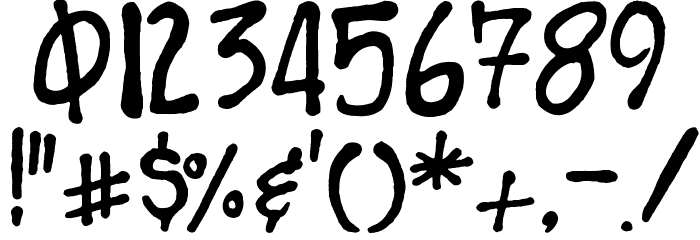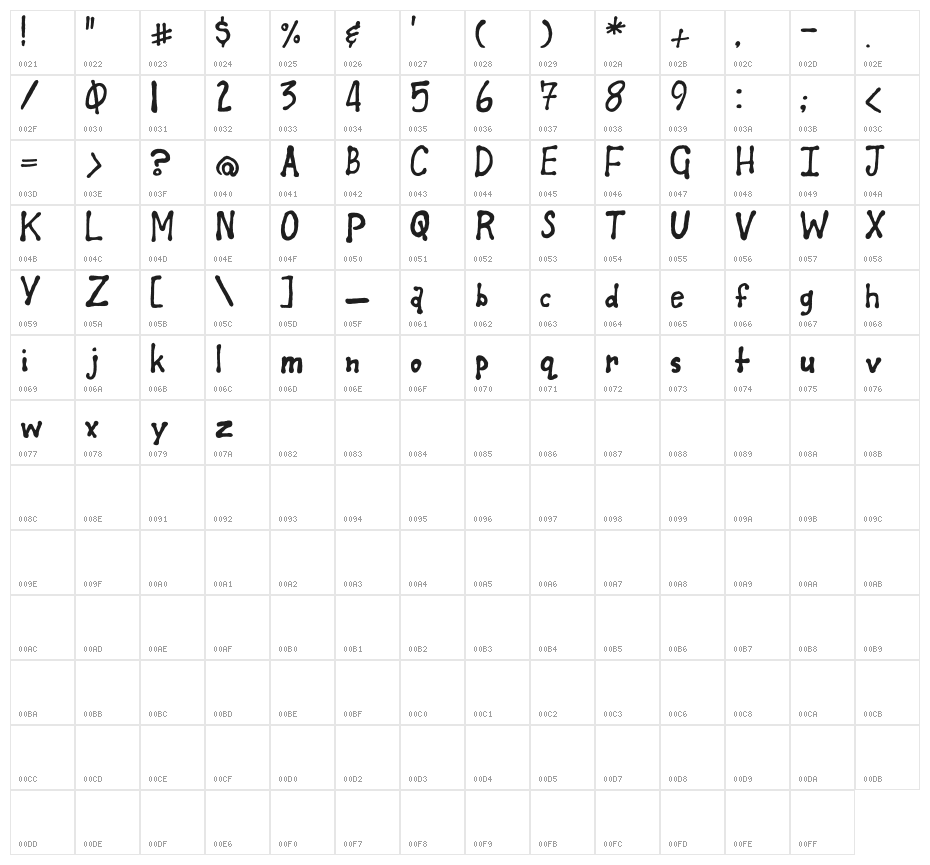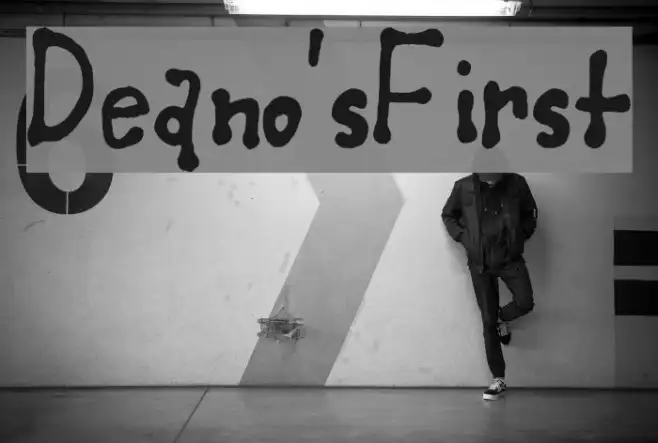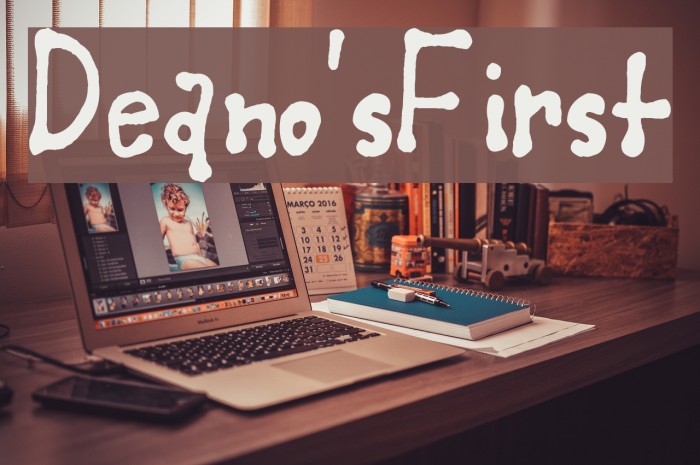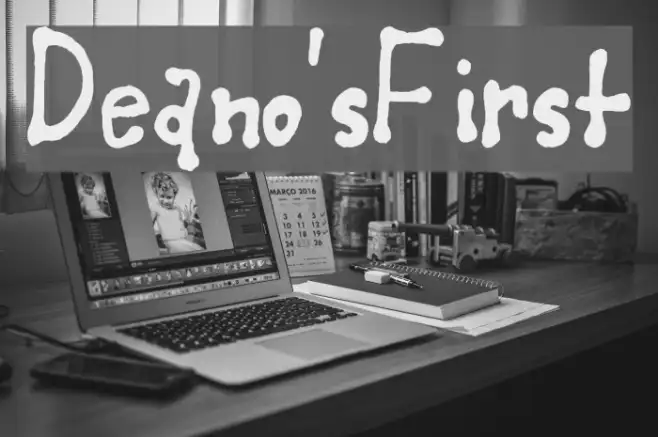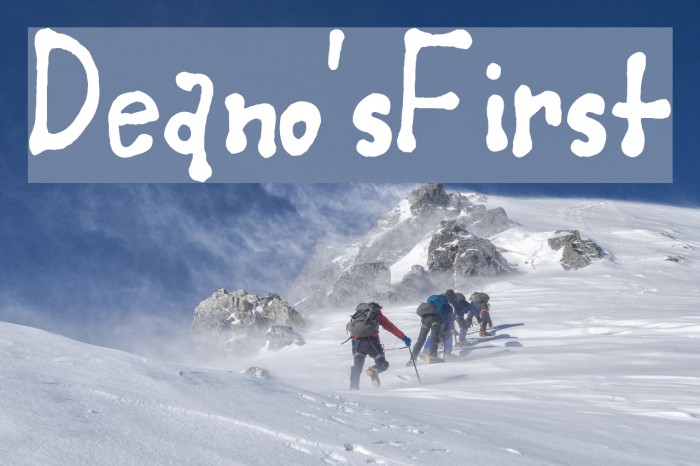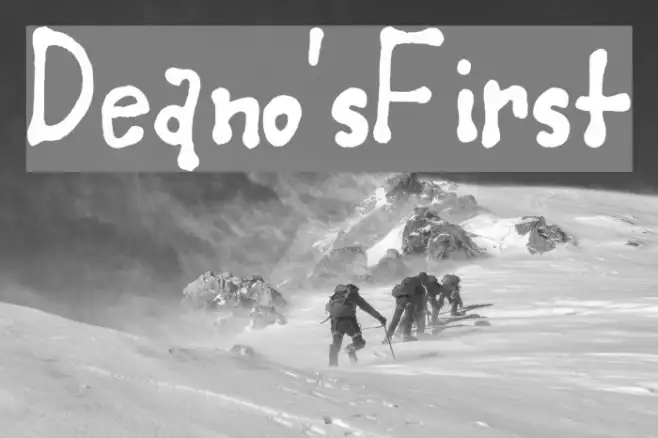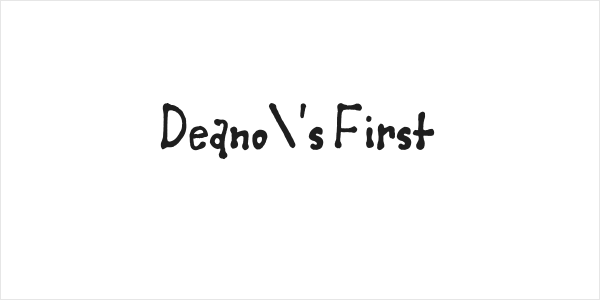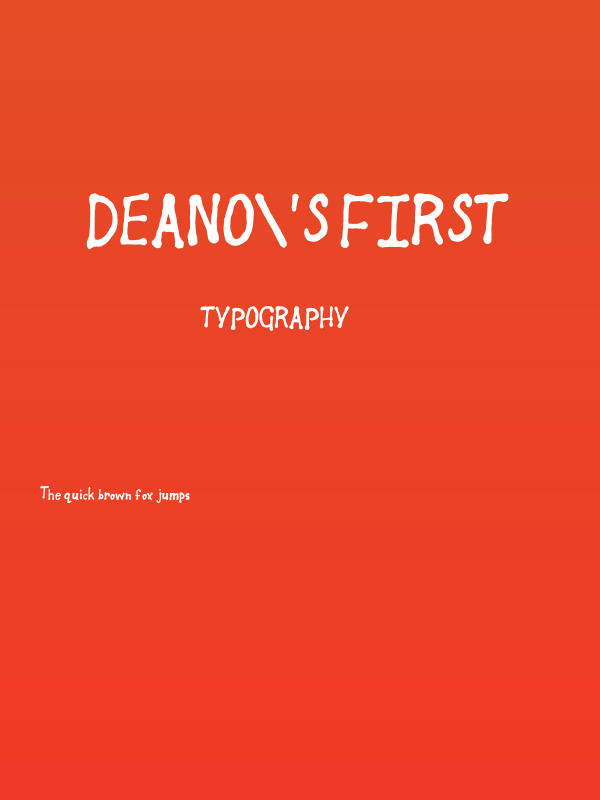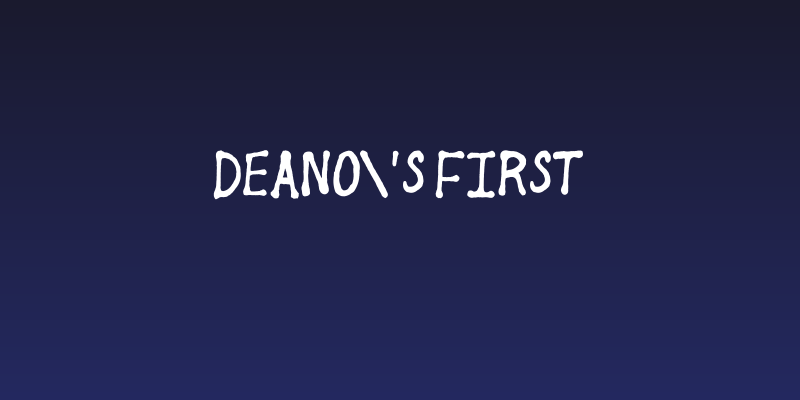
Deano's First Font
Deano's First Description
This font features a playful and informal style, characterized by its hand-drawn appearance. The letters are bold and slightly irregular, giving them a whimsical and casual feel. The uppercase and lowercase letters maintain a consistent style, with rounded edges and a slightly uneven baseline that adds to the font's charm. The numbers and special characters follow the same playful design, making them suitable for creative projects. The overall look is reminiscent of a child's handwriting or a doodle, making it perfect for projects that require a fun and approachable aesthetic.
| Proposed Projects | Ideal for children's books, playful branding, casual invitations, and creative posters. |